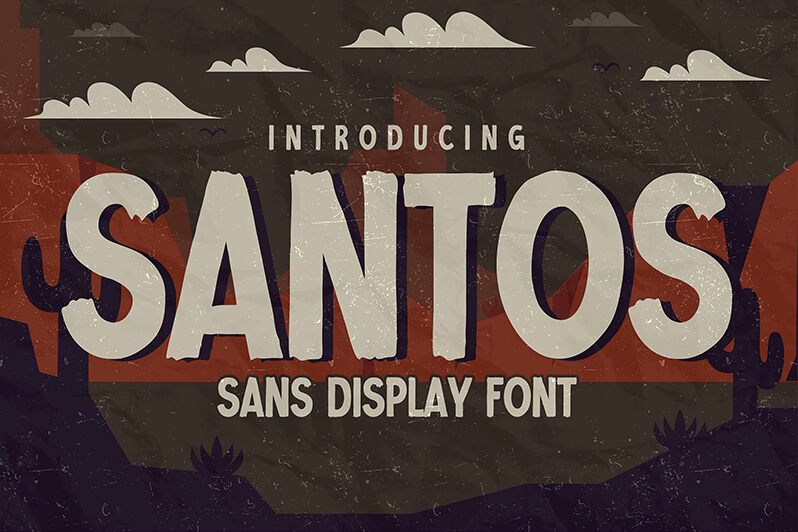
Santos
Santos, a sans display font crafted by the innovative Gassstype, embodies the vigor of modern style with a touch of dramatic movement. Its eroded texture speaks to an artistic spontaneity, while the bold, semi-condensed weight conveys a strong presence. This font dances between authenticity and fun, offering designers a versatile tool for projects that demand personality and flair.
Ideal for creative endeavors requiring an edge of the unconventional, Santos excels in label design, poster creation, and any project seeking to stand out. Its textured finish adds depth to branding and packaging, infuses greeting cards with character, and gives websites a distinctive voice. Photography overlays acquire an organic feel with Santos’s natural look, ensuring every endeavor it graces resonates with vitality. Embrace the energy of Santos for work that's as expressive as it is impactful.